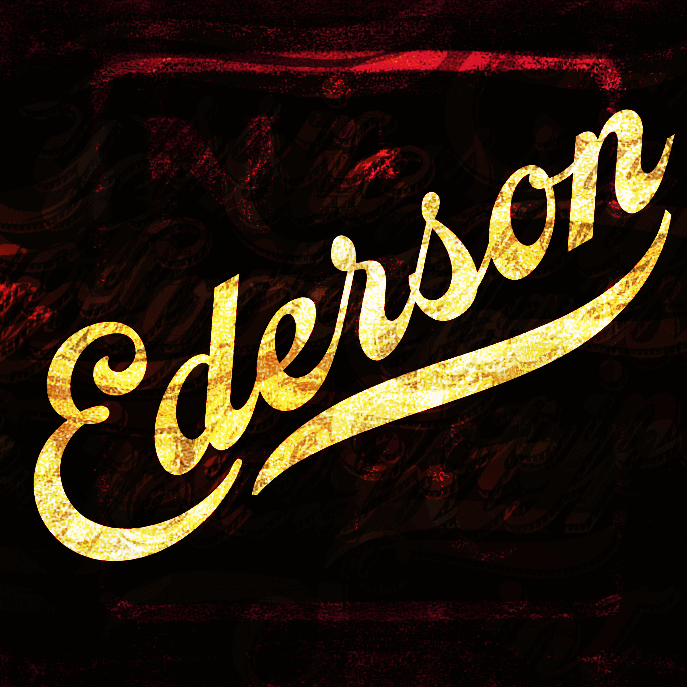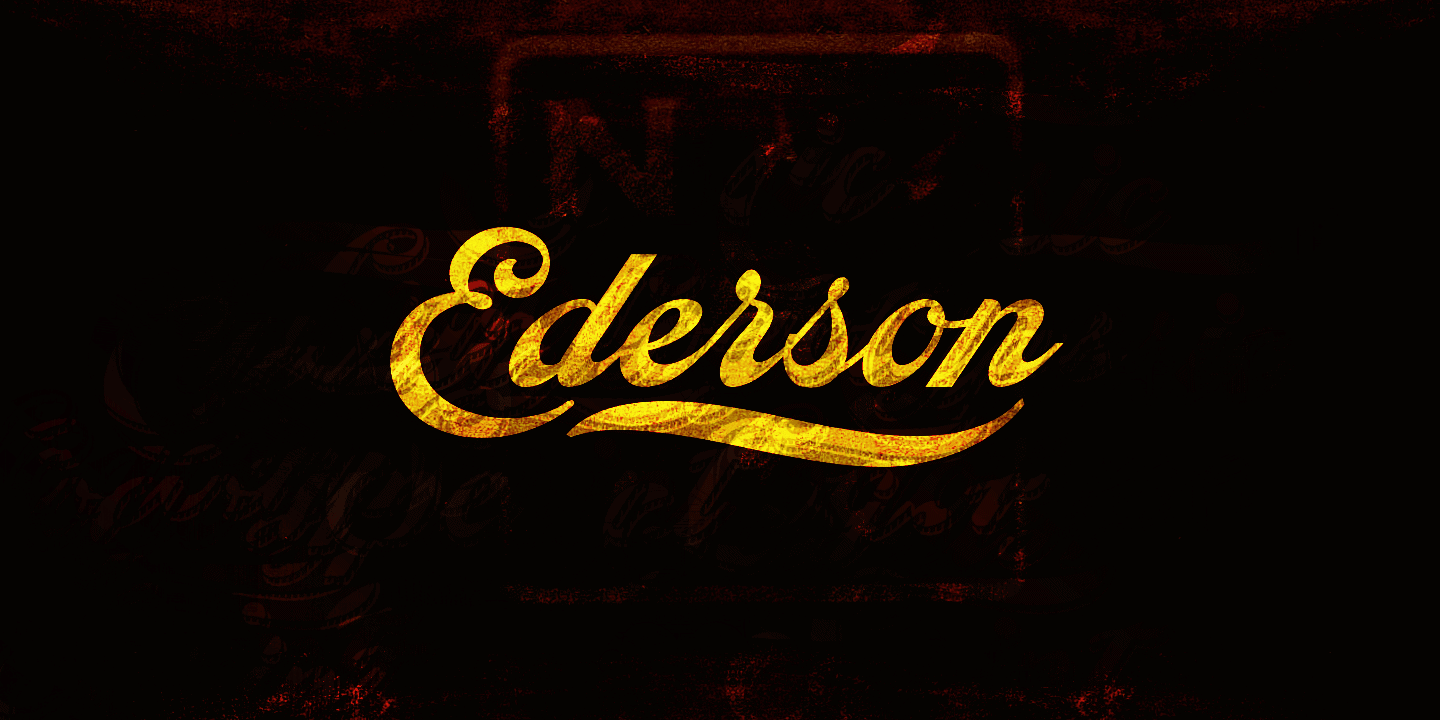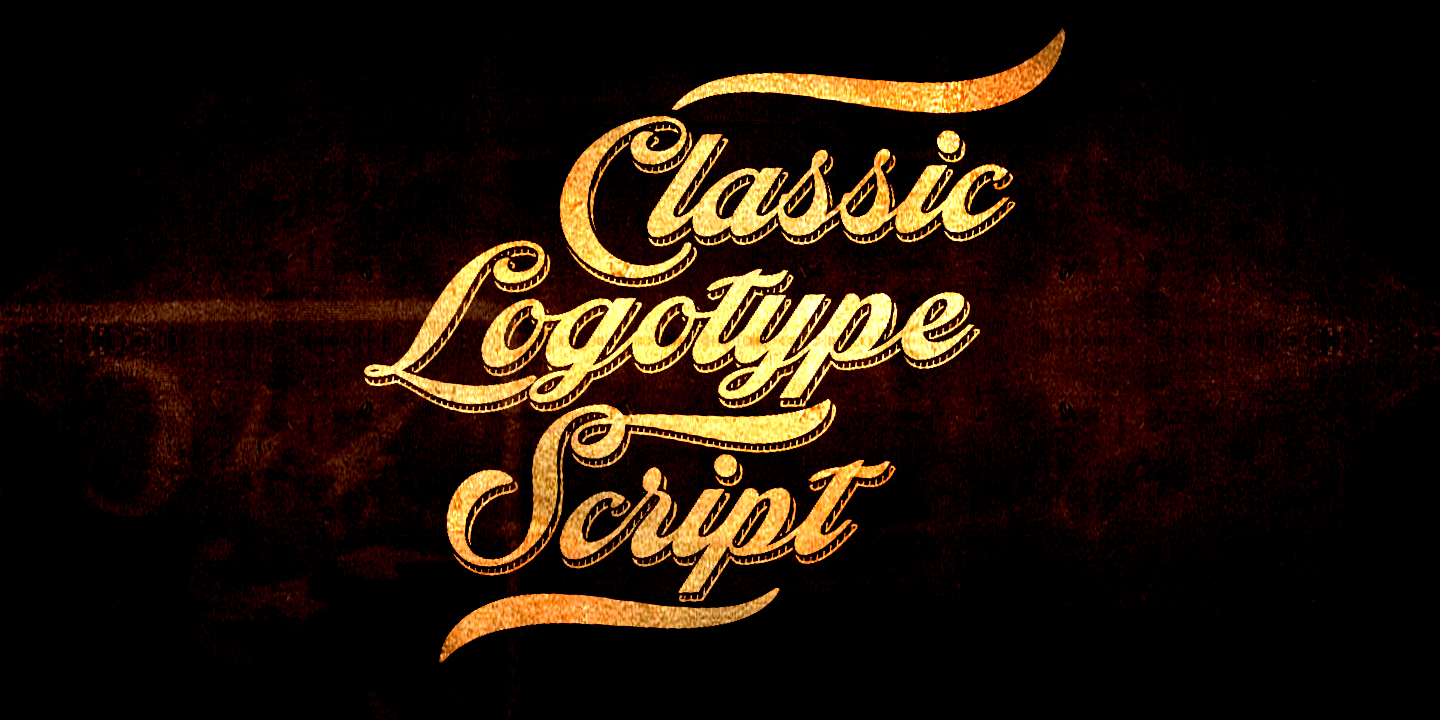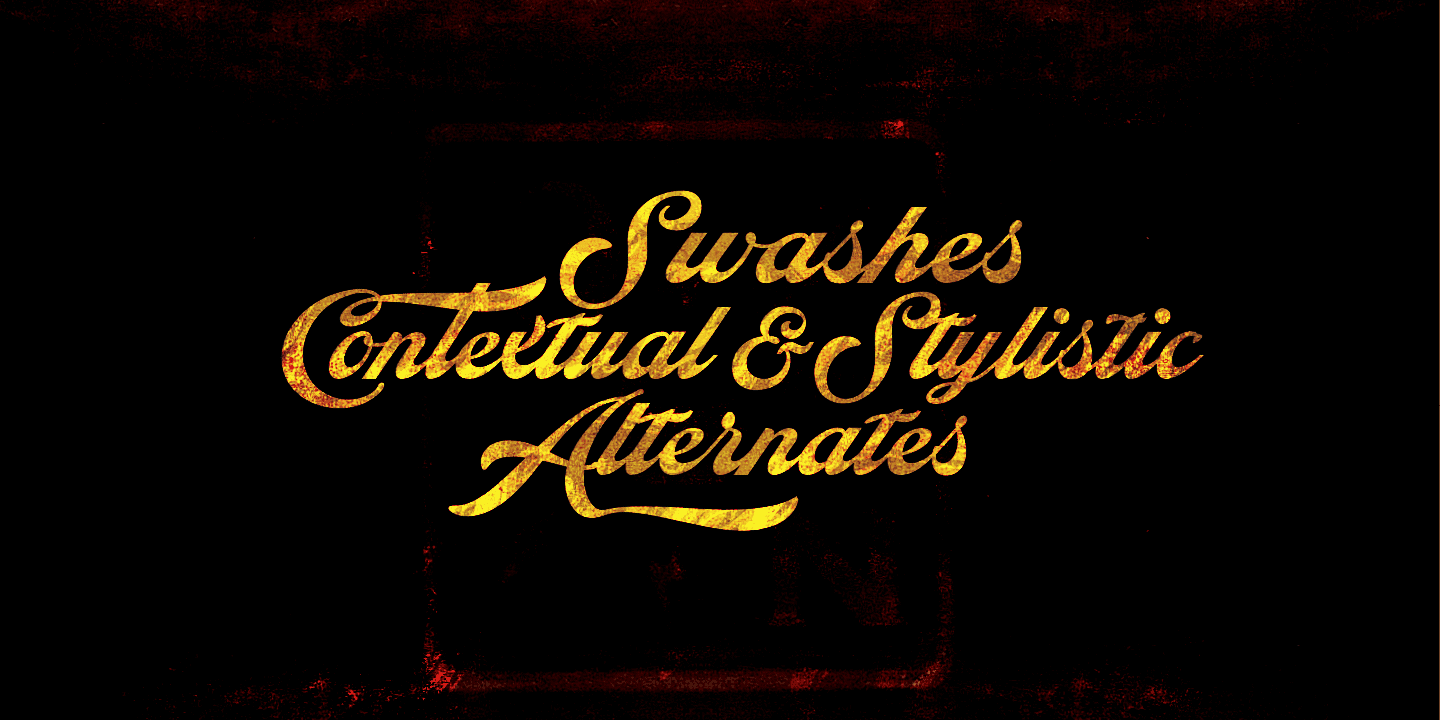
Ederson
Ederson is a classic logotype script. This high-quality typeface is drawn by Måns Grebäck in 2018 and gives any project a vintage touch.
It also comes with an additional decorative style containing swashes, swirls and ornamental capitals. These used together with the original font gives it a true customized look. The font is packed with all symbols you would ever need. This in addition to support for all major Latin-based languages.